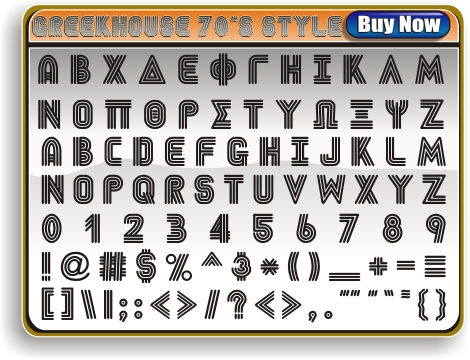
GREEK
This Greek 70's style font was inspired by the current
fashion trends seen at the mall. This stylized Greek font
is a bit of a blast from the past. This would be great
for theme parties as well as just stylin out the next
set of custom printed T-shirts for your Frat or Sorority
house. This is the twelth Greek font character set created
for Greek House of Fonts.
This
greek font style has 93 characters, 24 of them are the
Greek alphabet, the rest of the set contains the regular
26 character Latin alphabet as well as the full number
set and all the regular key symbols located on your keyboard.
This
font is considered as a: Medium Bold font
The
uppercase or CAPS-on will enable the Greek alphabet, the
lowercase or CAPS-off will enable the regular Latin alphabet.